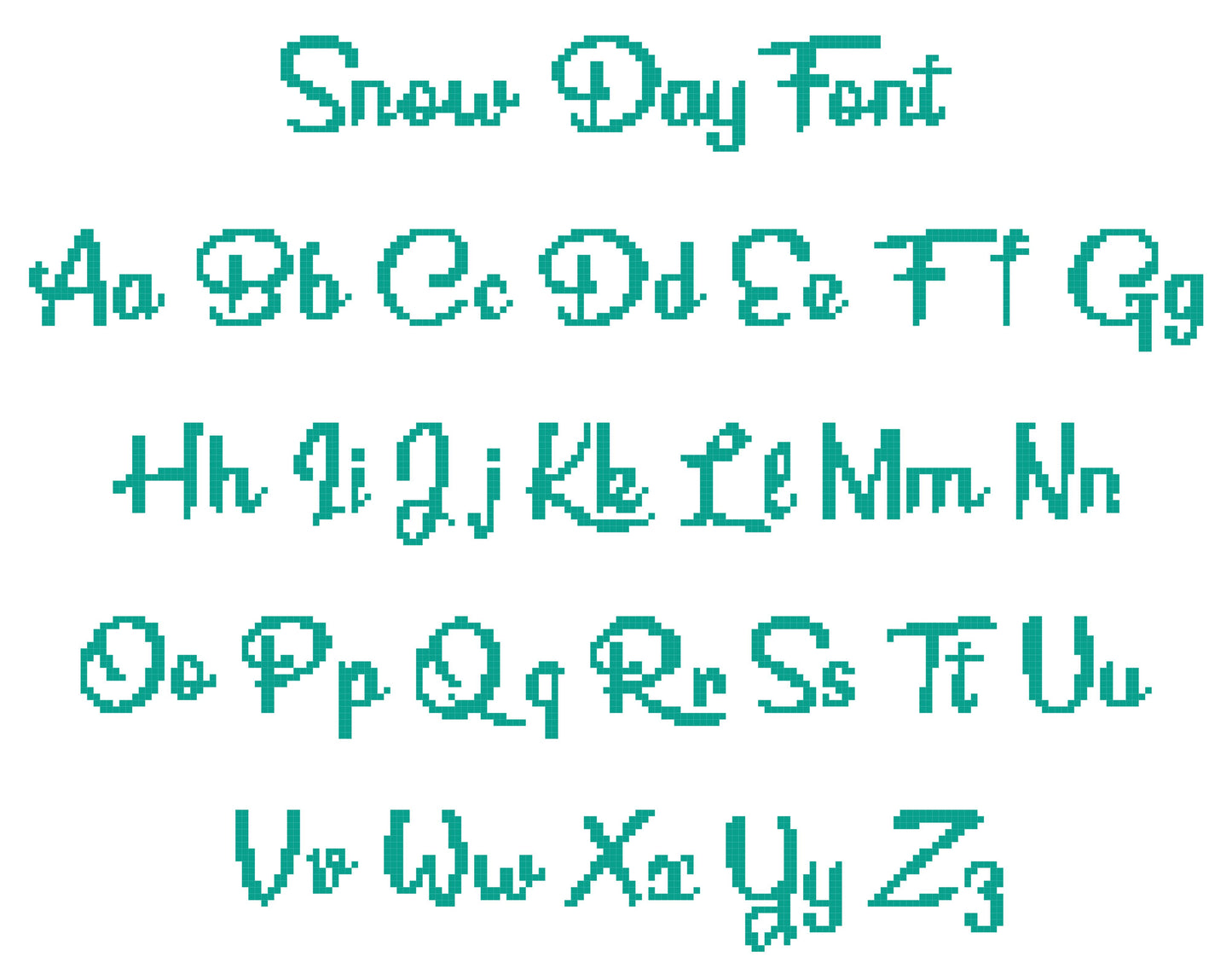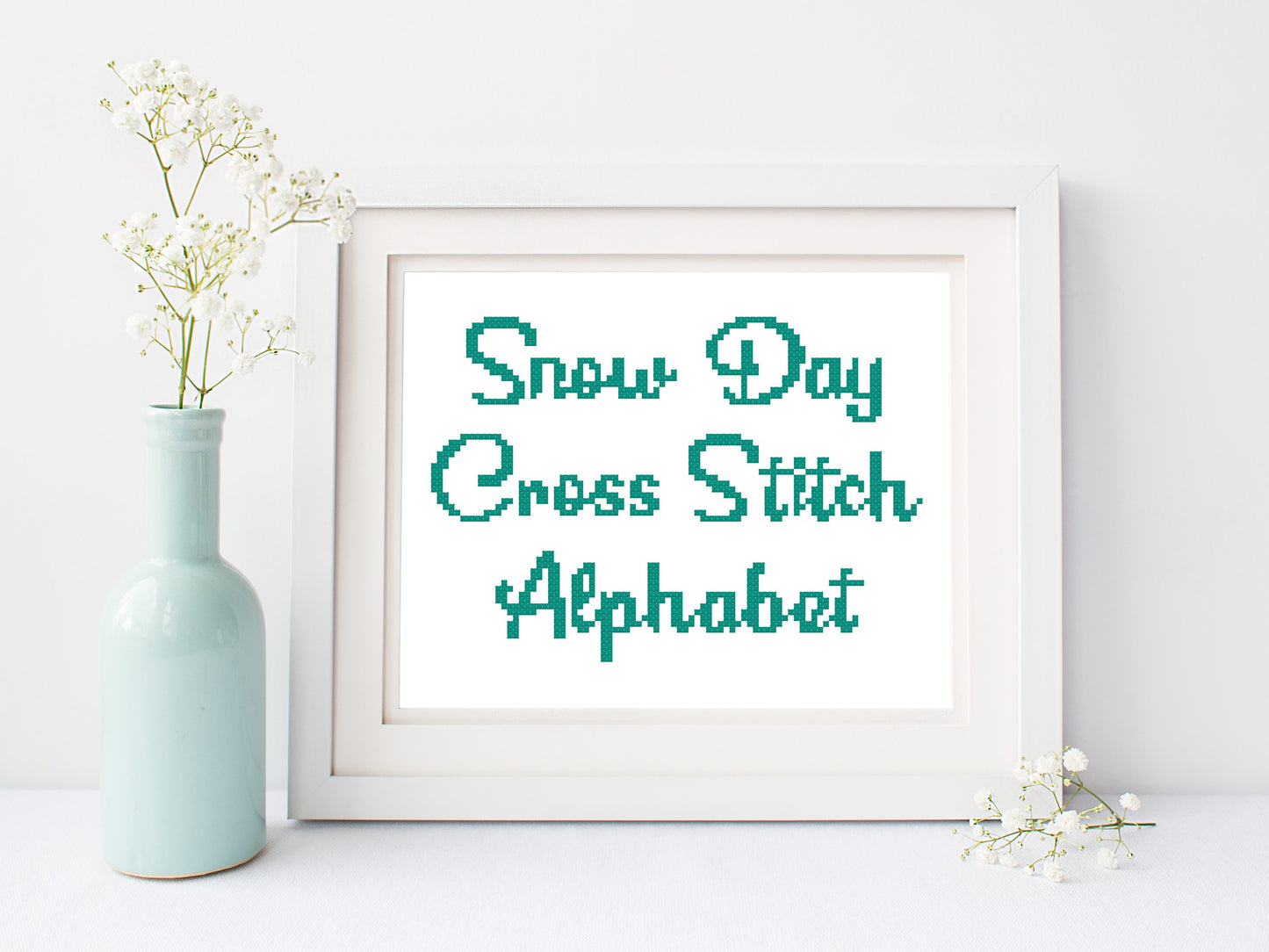
Snow Day Font PDF Pattern
This cross stitch font is easy and fun and features cute, bubbly letters.
Capital letters measure 8-19 stitches wide x 15-19 stitches tall
Lowercase letters measure 3-13 stitches wide x 6-13 stitches tall
-Whole stitches
Pattern Features
Perfect for Christmas stockings and other small projects
Larger Fonts (with letters measuring 10-20 stitches wide) can usually accommodate names up to 9-10 letters long (assuming your cuff fabric is about 100 stitches wide and there are no additional motifs to either side of the name).